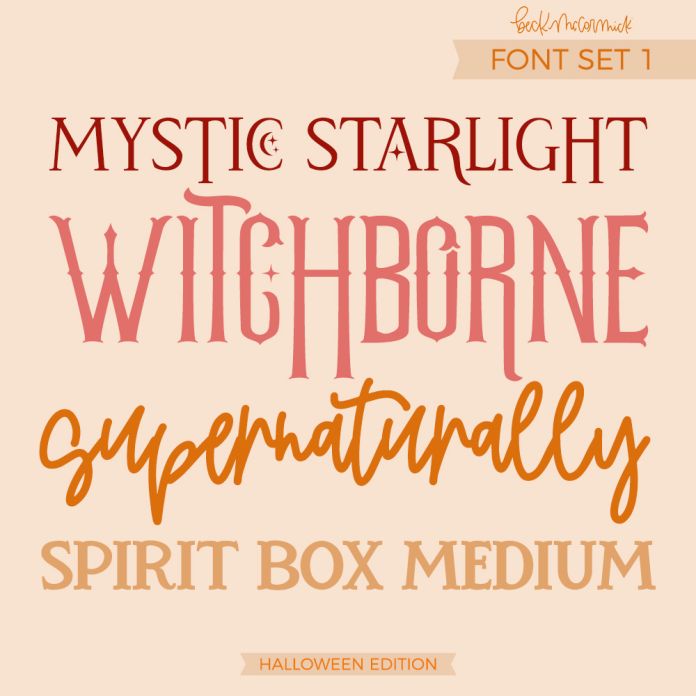
This set of 4 Halloween-themed fonts is versatile for all of your spooky design needs.
This set includes:
Mystic Starlight - A Tarot Font
Witchborne - A Witchy Serif Font
Supernaturally - A Messy Script
Spirit Box Medium - A Ouija Board Inspired Font